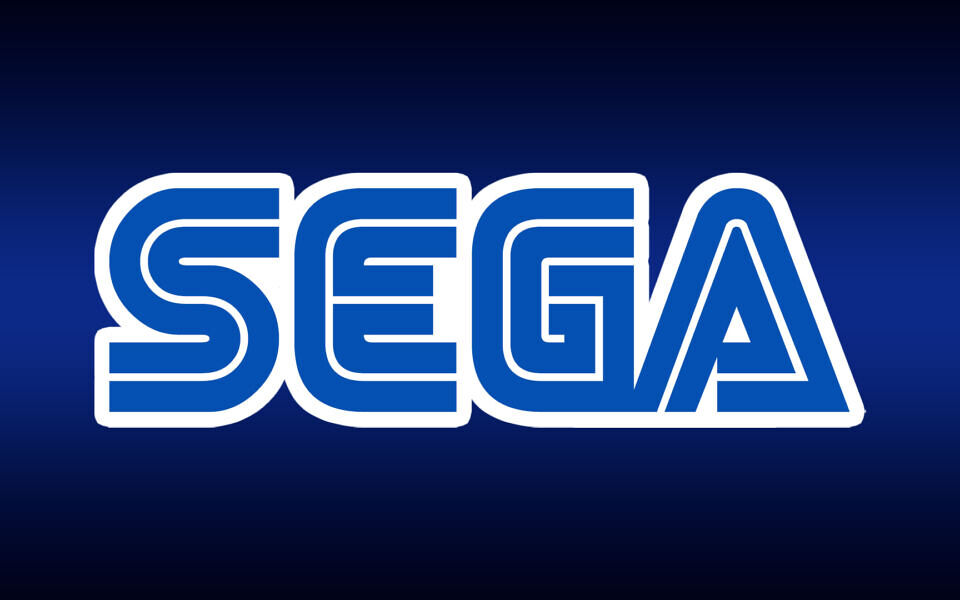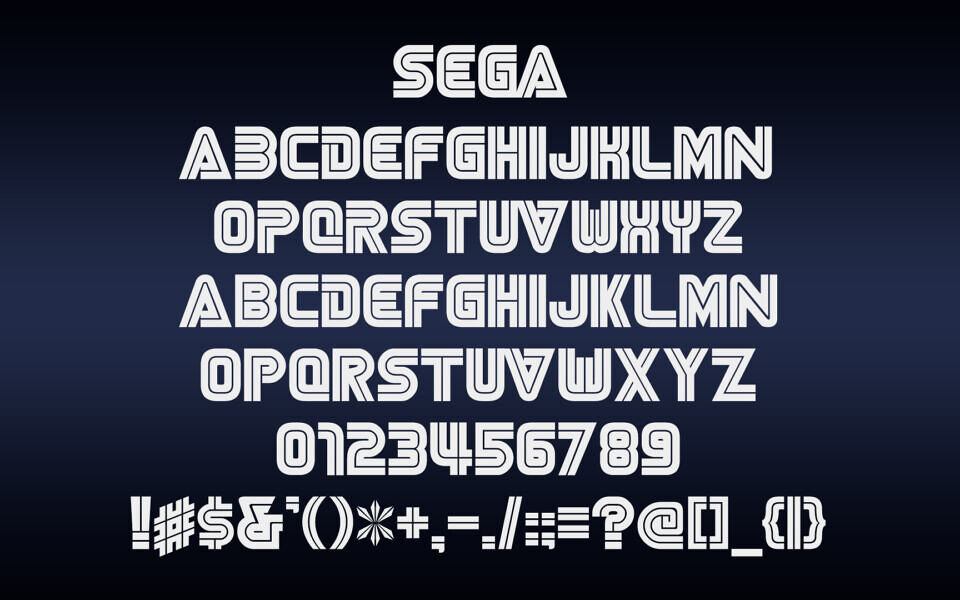
This SEGA REPLICA FONT, Nise Sega Ver. 2.5, is a nostalgic tribute designed for fans of the iconic gaming brand. It features uppercase characters that closely mimic official SEGA lettering, while lowercase letters offer a unique “arranged” variation.
Symbols like @ and # are designed with consistent height but thinner strokes. A unique kerning quirk allows uppercase “A” to overlap preceding characters. Strictly for non-commercial use, it includes a shortcut (Shift + @) to instantly generate the SEGA logo, perfect for retro-themed projects.